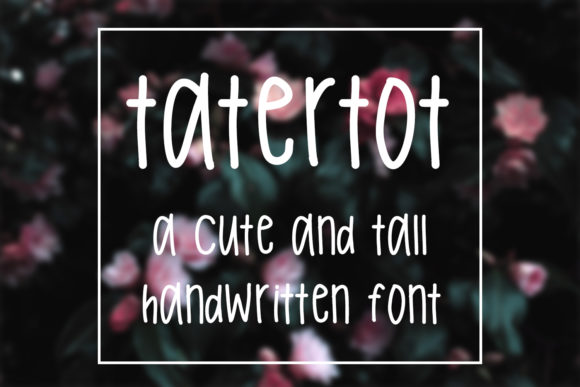
In a world seeking authenticity, we present Tatertot, a font family that dances across your screen, exuding exuberance. A creation of SavoringSurprises, this sans serif wonder is a breath of fresh air, a joyous romp through the world of typography.
Picture this: your website, a digital canvas painted with the allure of Tatertot. Its tall, slender strokes, reminiscent of a carefree handwritten note, weave an aura of effortless charm. Its great readability ensures that your message shines through, captivating your audience with clarity and grace.
The applications of Tatertot are as boundless as your imagination. Whether you're a seasoned designer or just starting your creative journey, Tatertot is your trusty companion, guiding you through a myriad of projects with its versatile nature.
Dive into the world of branding with Tatertot as your secret weapon. Craft logos that whisper your brand's story, with each letter a testament to your unwavering dedication to quality. Websites adorned with Tatertot's allure transform into virtual gateways of elegance, inviting visitors to linger and explore.
Step into the realm of social media, where Tatertot's magic truly comes alive. Your Instagram posts and Facebook updates burst with personality, each word a vibrant hue in the tapestry of your online presence. Tatertot's charm breathes life into your tweets, making every 140 characters a delightful adventure.
But Tatertot's powers extend far beyond the digital realm. Unleash its potential in print, where its graceful strokes dance across brochures, flyers, and posters. Transform your presentations into visual feasts, with Tatertot as your secret ingredient.
The possibilities are endless, a kaleidoscope of creativity waiting to be explored. With Tatertot by your side, your designs take flight, reaching new heights of sophistication and flair.
Don't settle for ordinary fonts that blend into the background. Embrace Tatertot, the font that captivates, the font that transforms, the font that makes your designs sing.